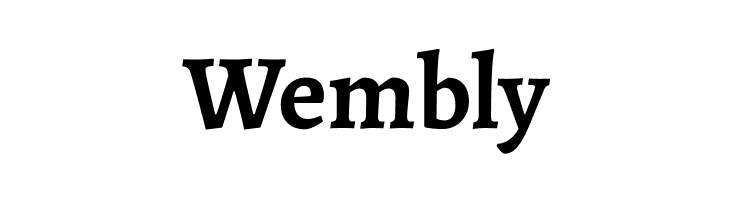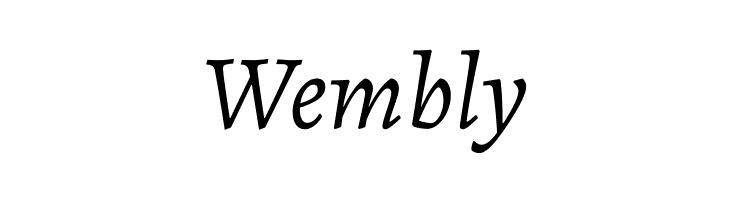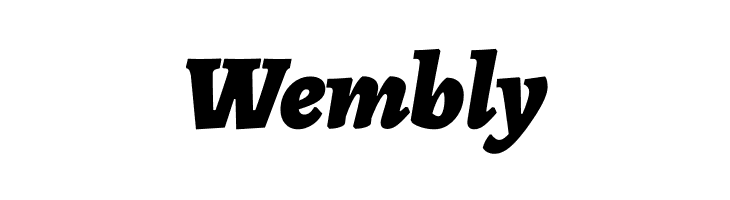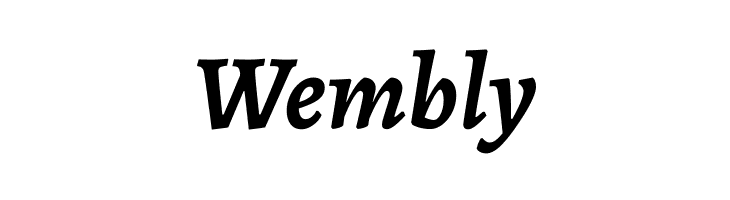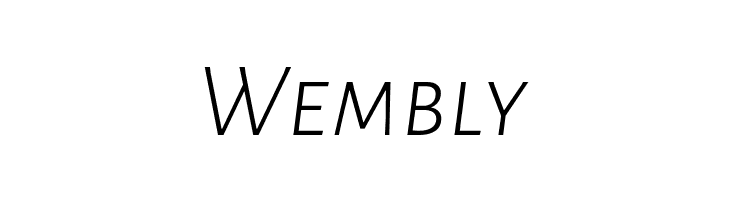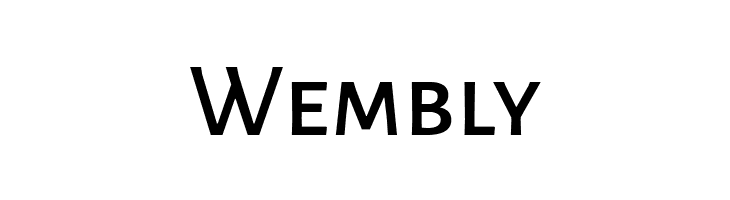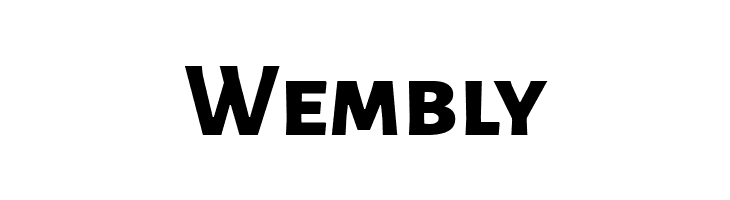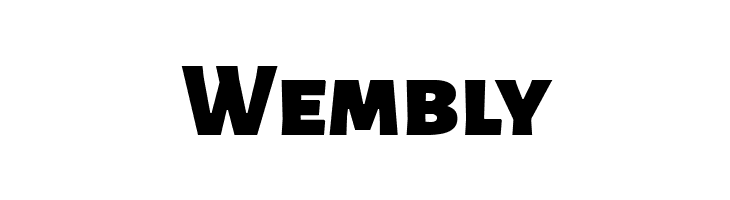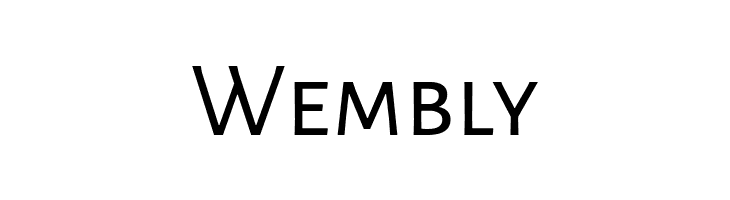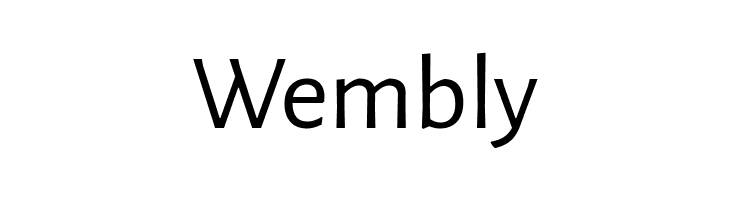
• Alegreya Black Italic
A bold, italic serif font with strong strokes and a dynamic presence.
• Alegreya Bold
A bold, classic serif font with strong serifs and elegant curves.
• Alegreya Bold Italic
A bold, italic serif font with dynamic and elegant letterforms.
• Alegreya ExtraBold
A bold serif typeface with dynamic strokes and elegant curvature.
• Alegreya ExtraBold Italic
A bold, italic serif font with dynamic movement and classic elegance.
• Alegreya Italic
An elegant, italic serif font with moderate contrast and classic appeal.
• Alegreya Medium
A medium-weight serif font with a balanced, modern classic style.
• Alegreya Medium Italic
A medium weight, italic serif font with elegant and refined characteristics.
• Alegreya Regular
A versatile serif font with a blend of traditional and modern elements.
• Alegreya Sans
A modern sans-serif font with balanced proportions and open forms, offering clarity and elegance.
• Alegreya Sans Black
A bold, modern sans-serif font with strong geometric shapes and thick strokes.
• Alegreya Sans Black Italic
A bold, italicized sans-serif font with a modern and authoritative style.
• Alegreya Sans Bold
A bold, modern sans-serif font with clean lines and a strong presence.
• Alegreya Sans Bold Italic
A bold, italicized sans-serif font with a modern and elegant style.
• Alegreya Sans ExtraBold
A bold, modern sans-serif font with excellent readability and strong presence.
• Alegreya Sans ExtraBold Italic
• Alegreya Sans Italic
A modern sans-serif font with an elegant italic slant and clean lines.
• Alegreya Sans Light
A modern, light sans-serif font with low contrast and a clean, professional appearance.
• Alegreya Sans Light Italic
A light, italic, sans-serif font with a modern and elegant style.
• Alegreya Sans Medium
A modern, medium-weight, italic sans-serif font with a clean and elegant design.
• Alegreya Sans SC Regular